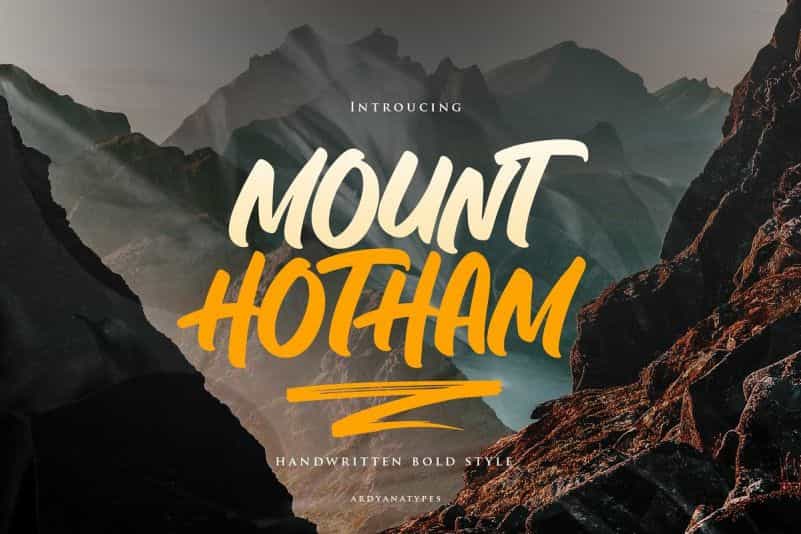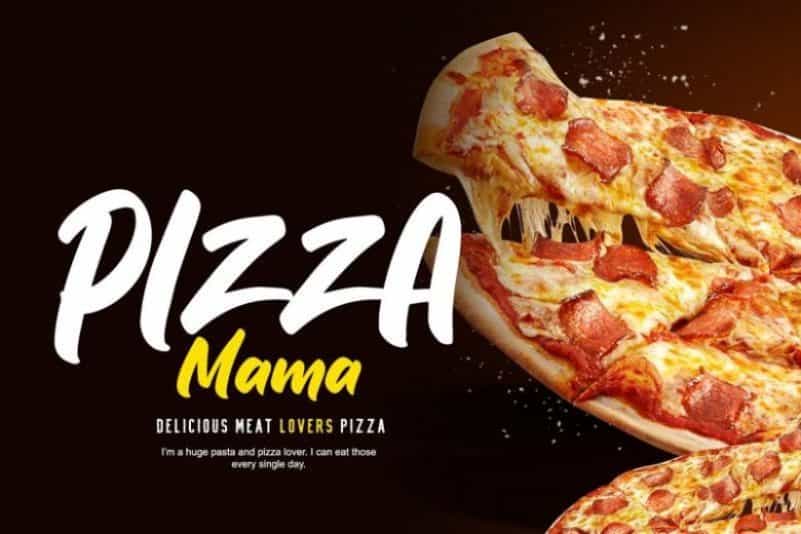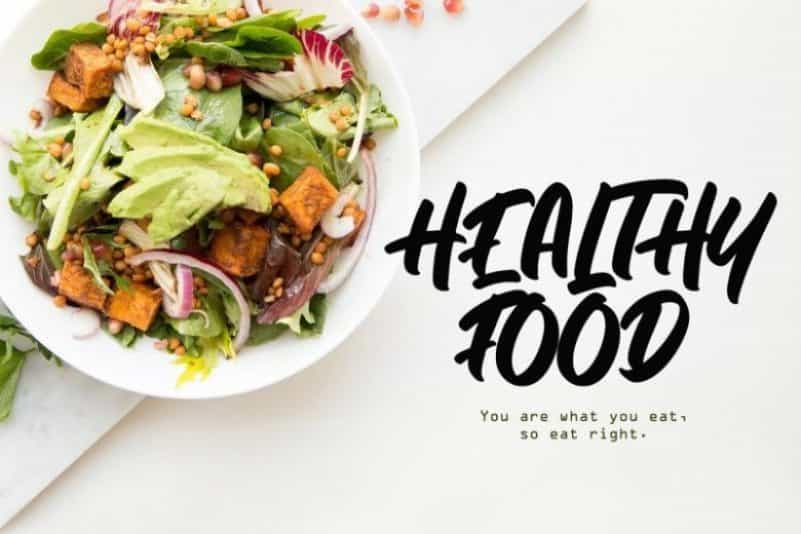
Hotham is a typeface created in the natural handwriting style. with a bold style, Hotham appears to be more confident and good-looking which will make all your work look much better.